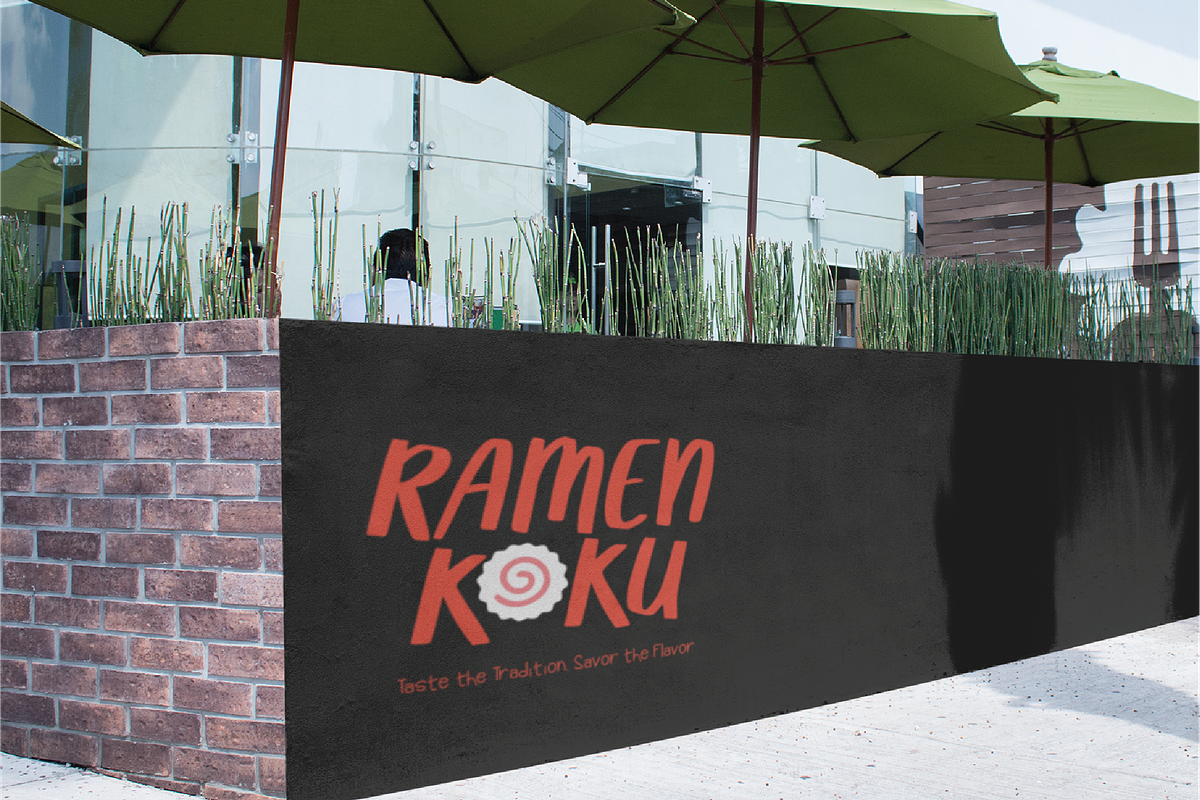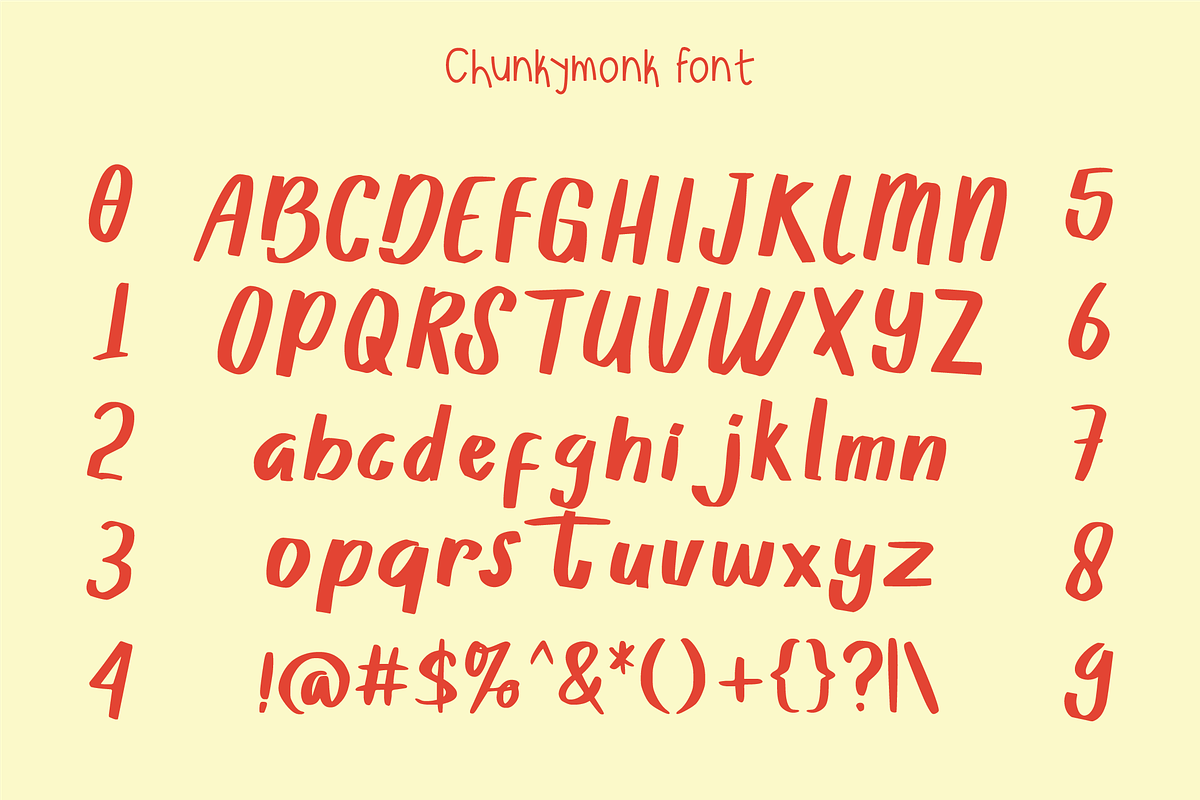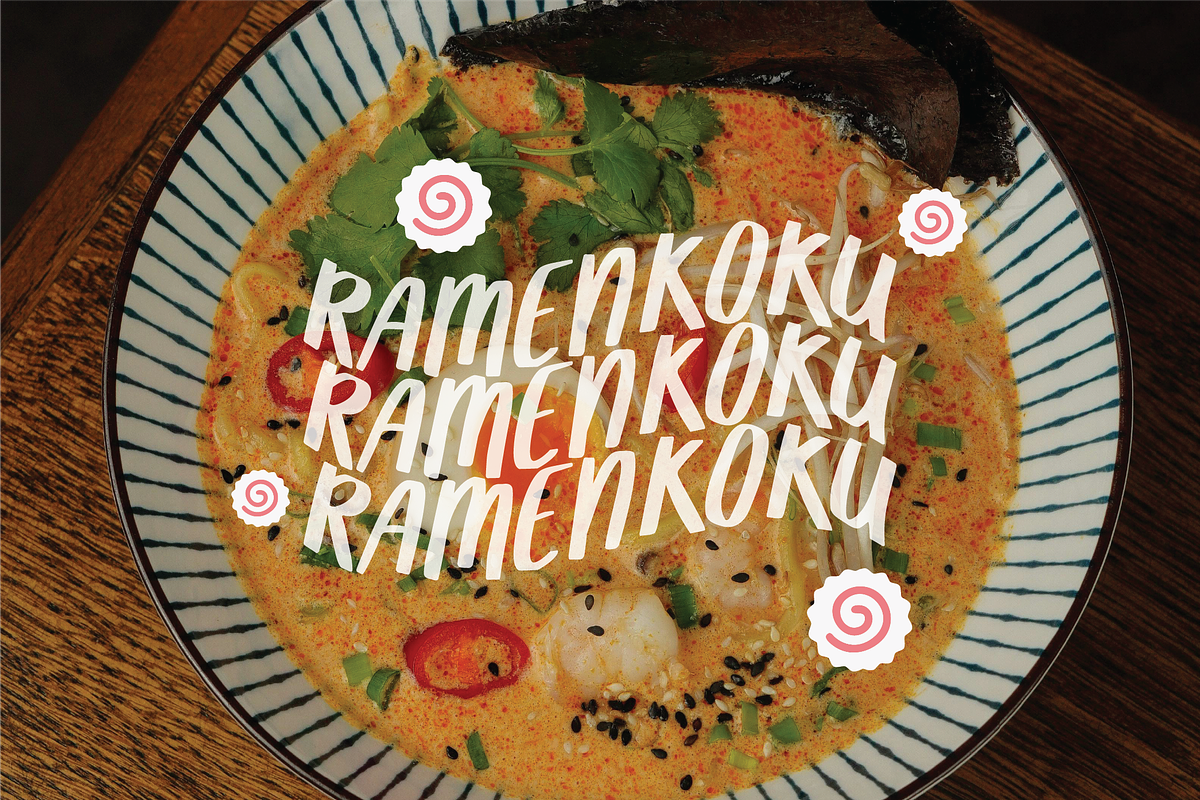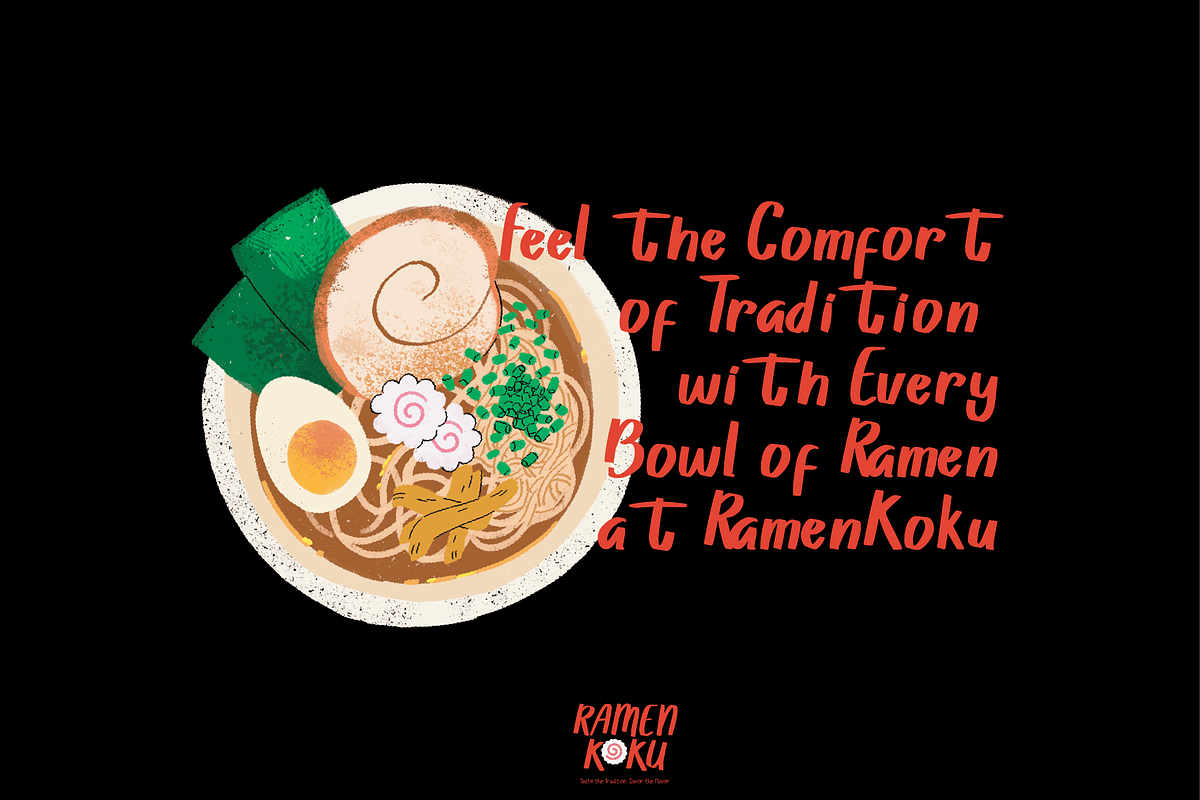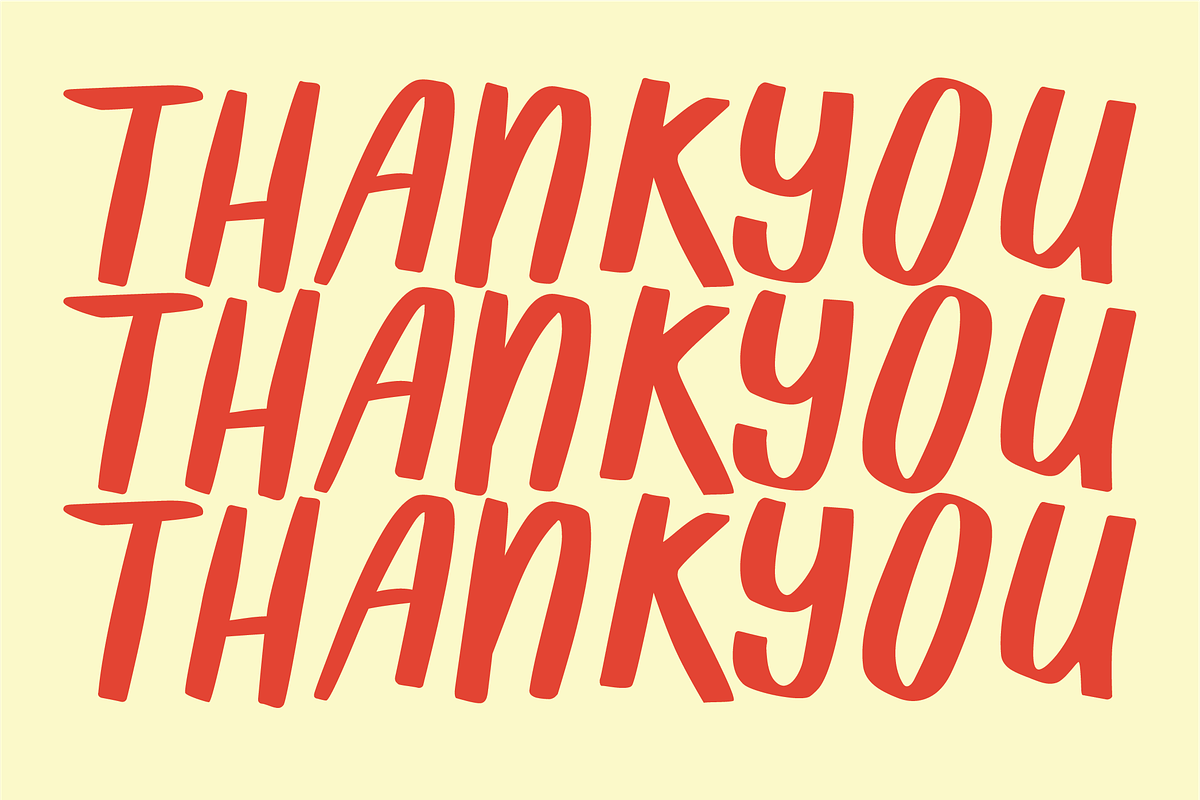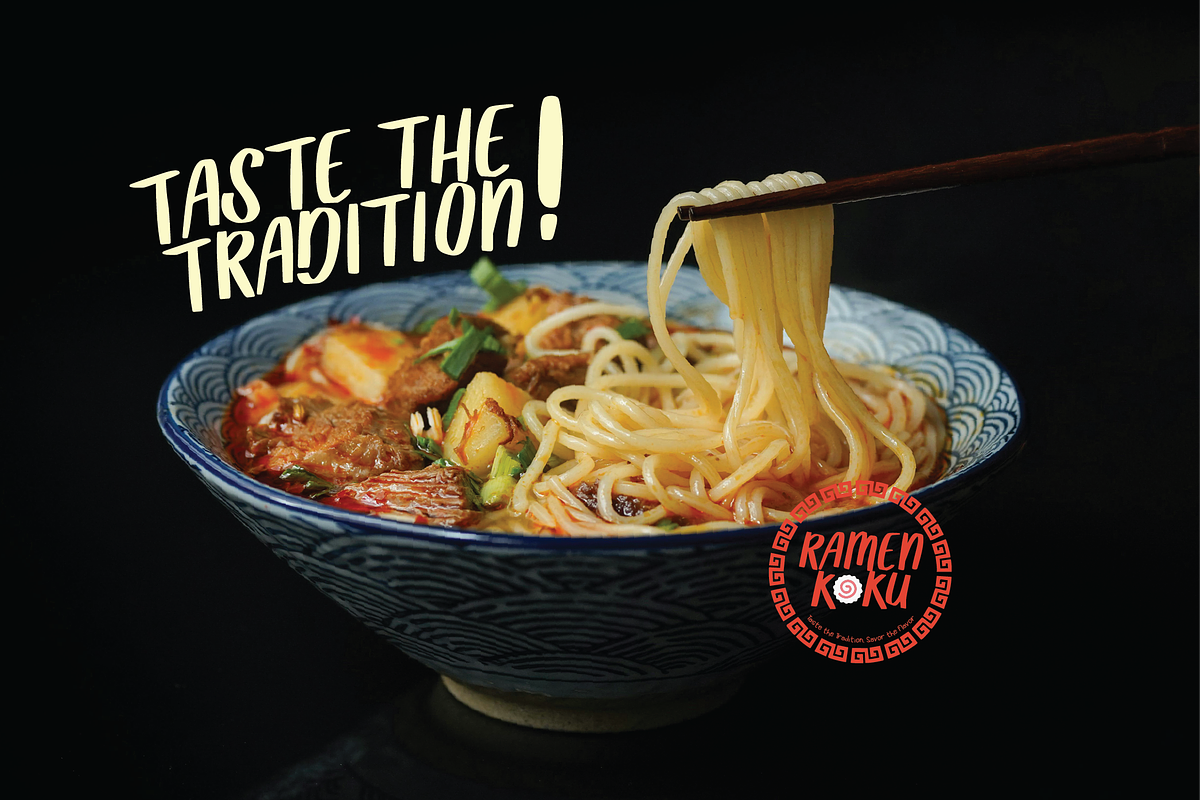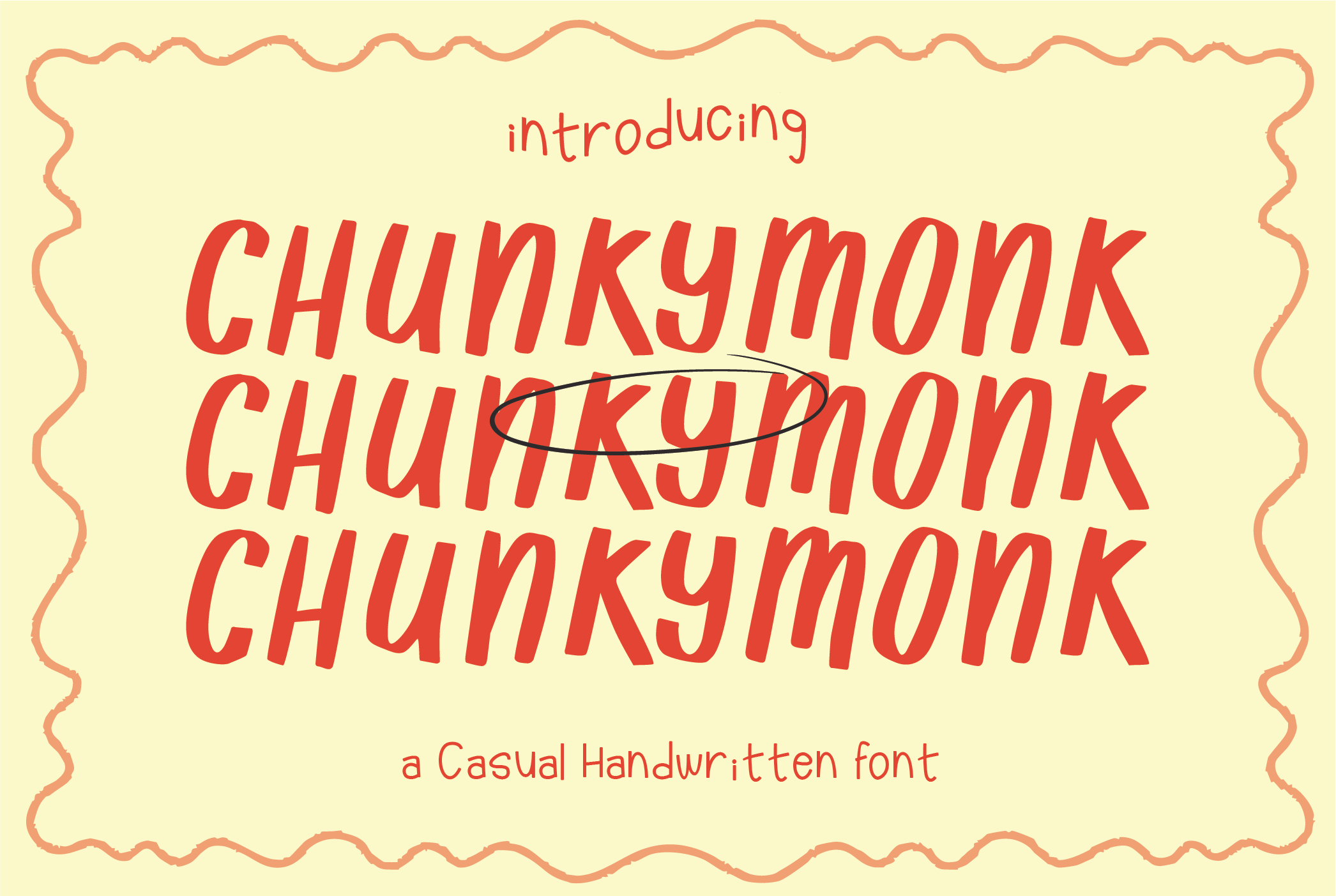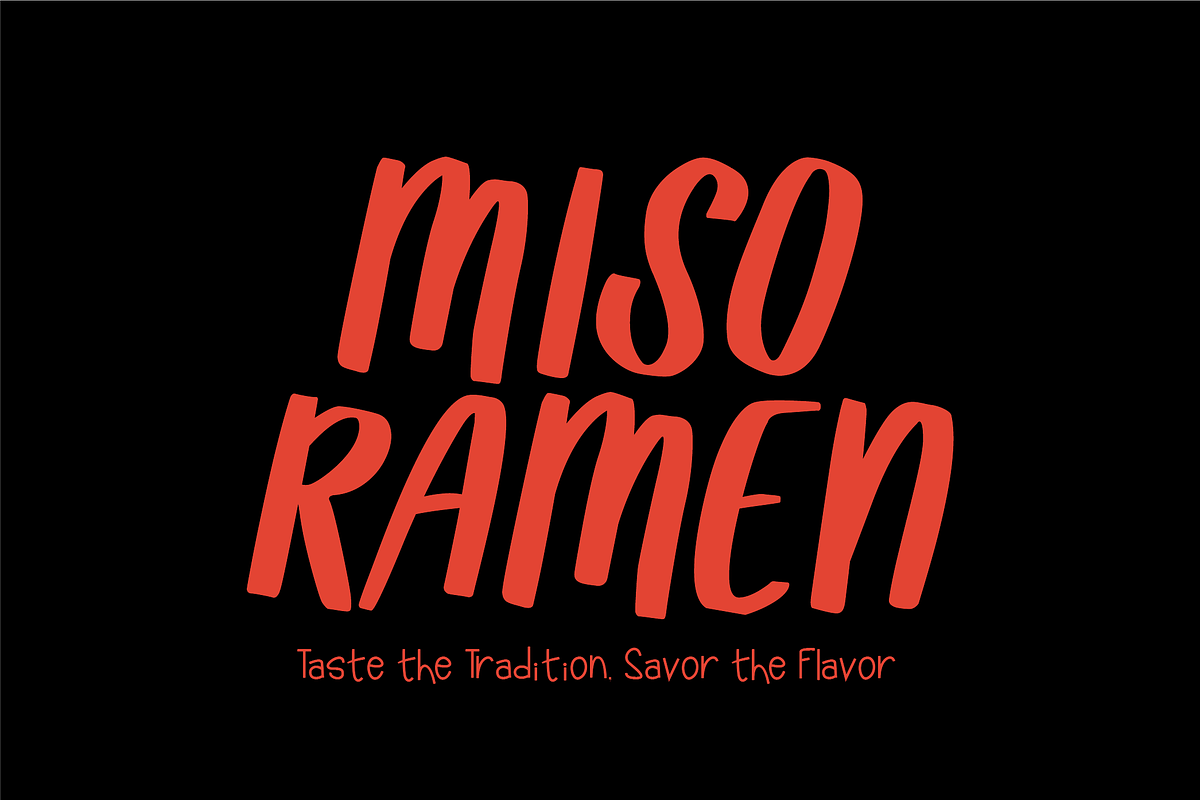
Chunkymonk - Casual Handwritten Font
Chunkymonk This font has a bold, playful, and slightly retro vibe. The letters are thick, with rounded edges and a slight slant that adds a dynamic feel.
- Numbers, marks and symbols